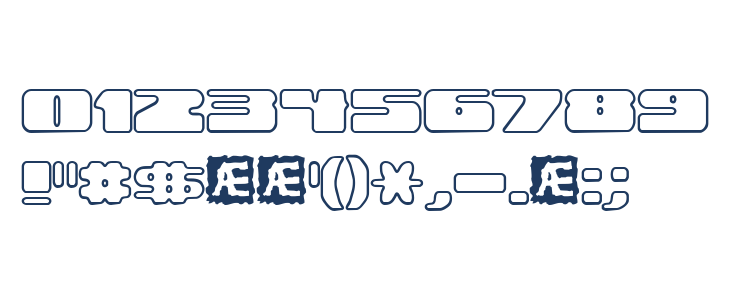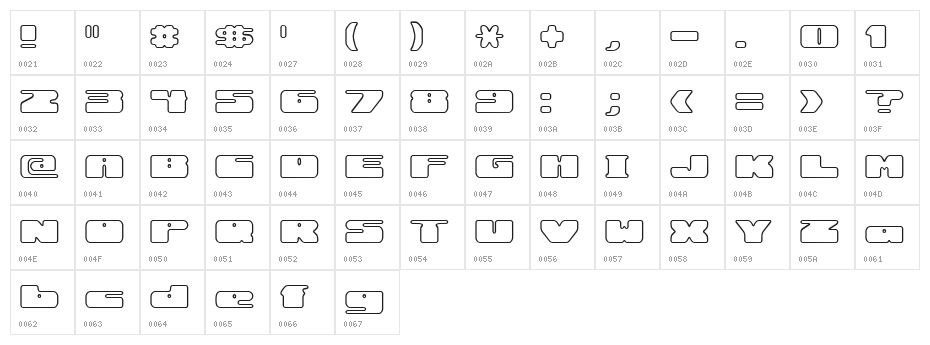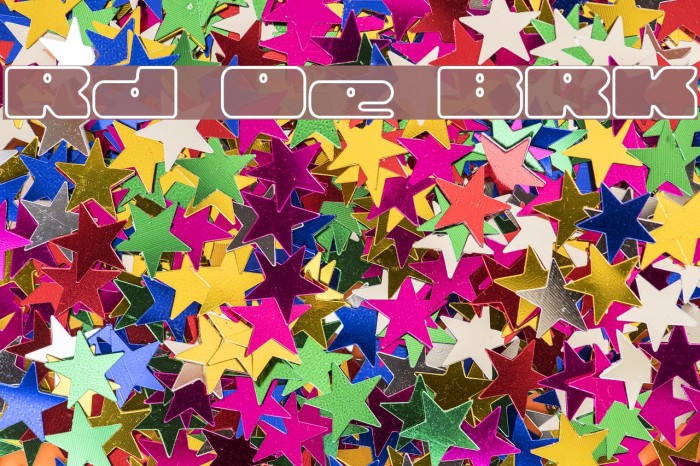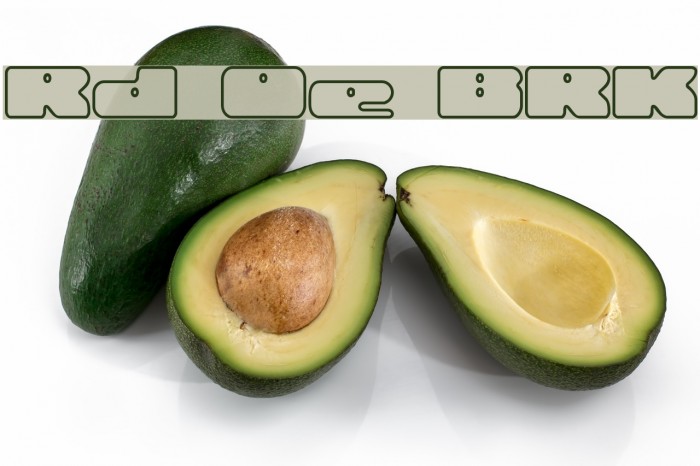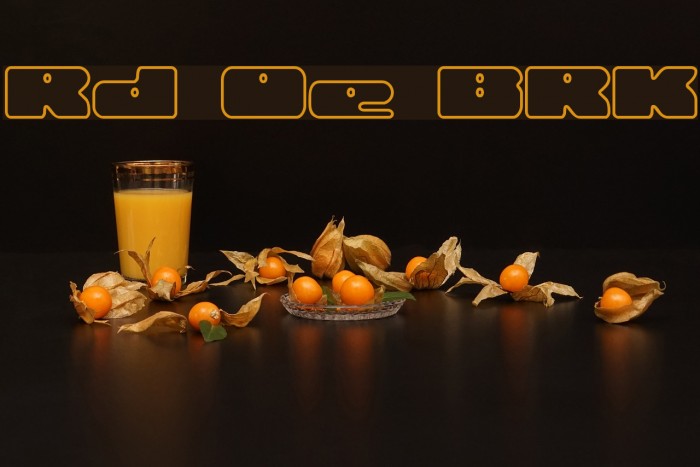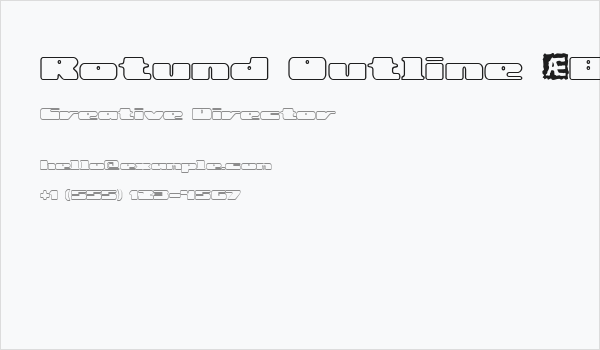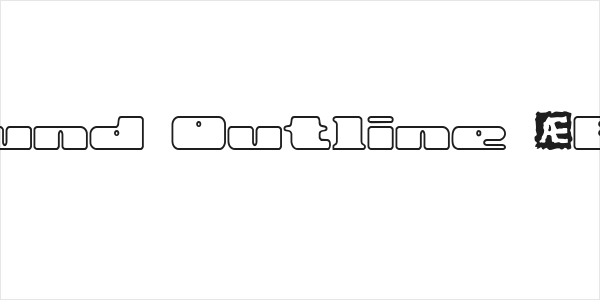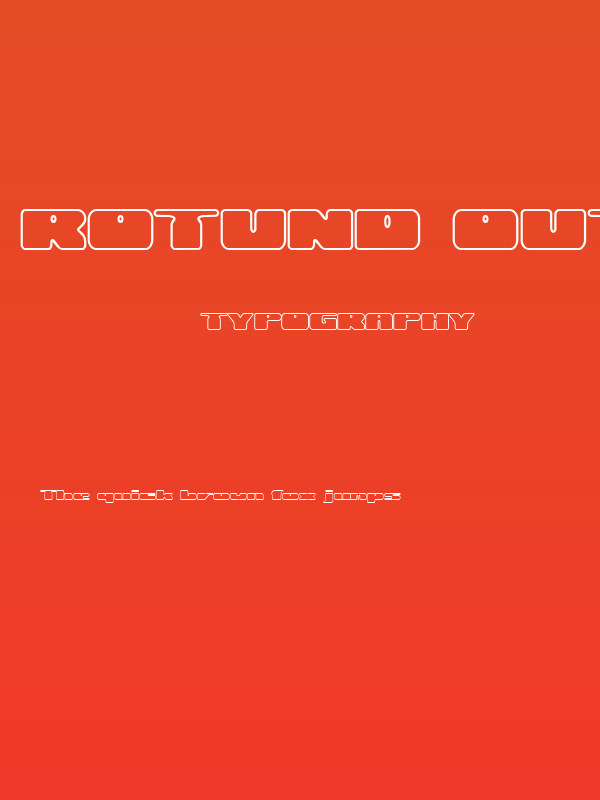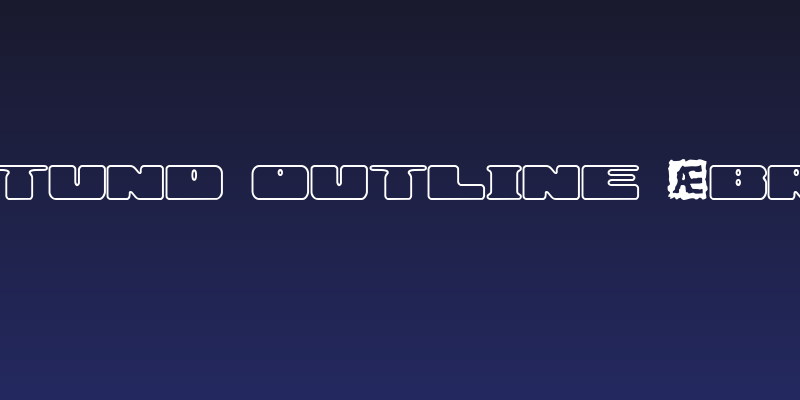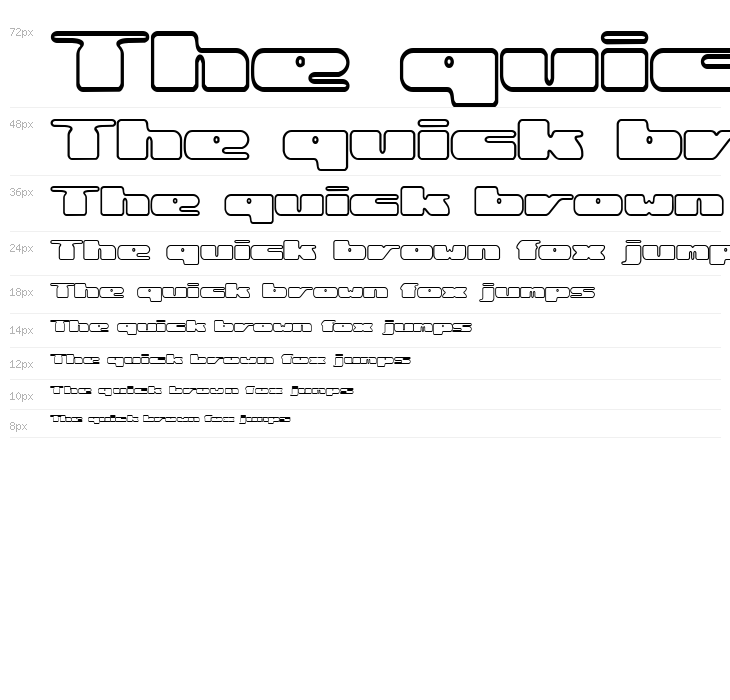
Rotund Outline [BRK] Font
Rotund Outline [BRK] Description
This font features a bold, geometric outline style that gives it a distinct and modern appearance. The characters are constructed with thick, uniform lines that form a hollow interior, creating a striking visual effect. The uppercase and lowercase letters maintain a consistent width, contributing to a cohesive look. The numerals and special characters follow the same design principles, ensuring uniformity across all glyphs. This font's unique outline design makes it stand out, ideal for projects that require a bold statement.